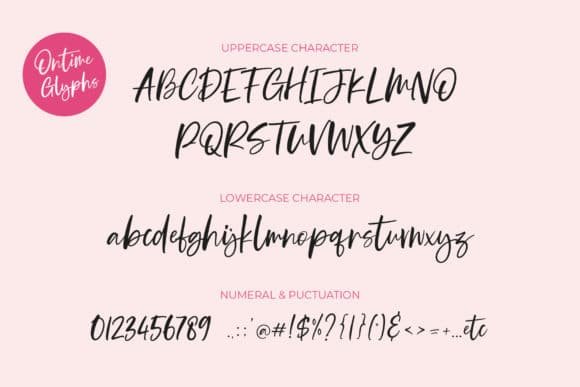
Ontime Font
Ontime is an elegant script font with a contemporary atmosphere and impeccable form, inspired by a timeless classic calligraphy. Not too thin and not too thick, balanced and varied, this font was designed to enhance the beauty of your projects. Ontime is PUA encoded, which means you can access all of the glyphs and swashes with ease!